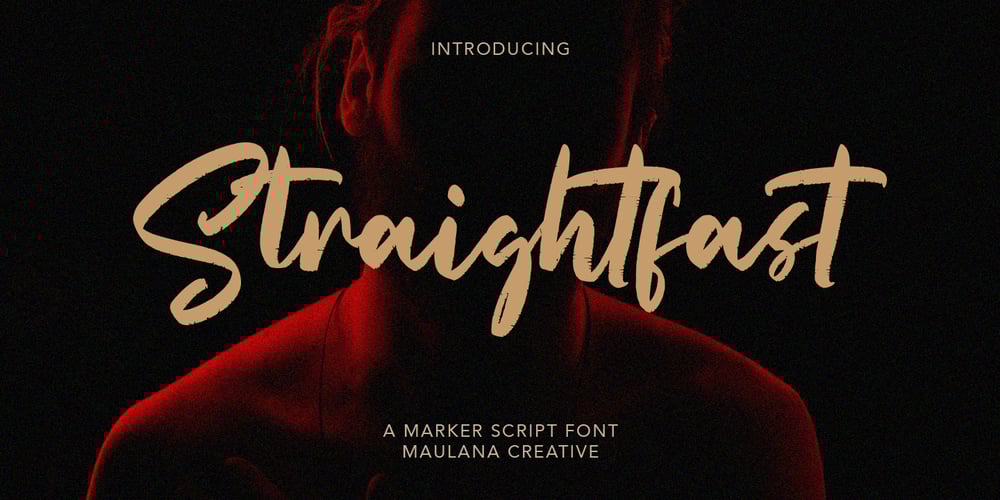
Straightfast Font Family was designed by Gilang Maulana and published by Maulana Creative. Straightfast contains 1 styles and family package options. Straightfast is a marker script font. With rough stroke and fun character. It has Opentype features a couples of ligature to give you an extra creative work. Straightfast marker font support multilingual more than 100+ language. This font is good for logo design, Social media, Movie Titles, Books Titles, a short text even a long text letter and good for your secondary text font with sans or serif. Make a stunning work with Straightfast marker script font. Cheers, MaulanaCreative